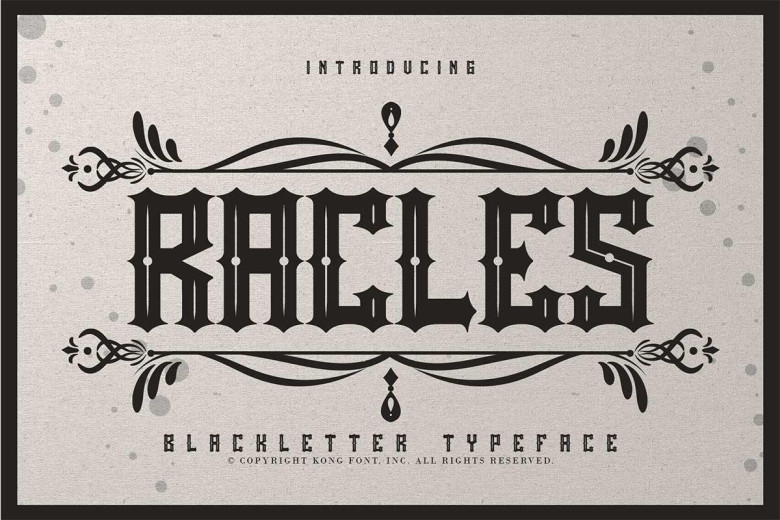
Rackles Blackletter Typeface
Rackles Font is a classic blackletter typeface with a minimalist design, with Uppercase and Lowercase available. Rackles font is the great choice for several purpose, it suitable for for headline, logotype, apparel, invitation, branding, packaging, advertising etc.